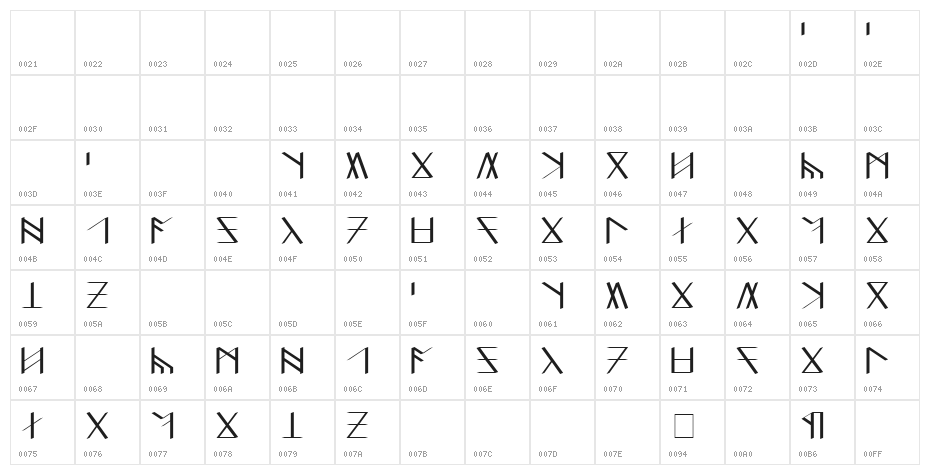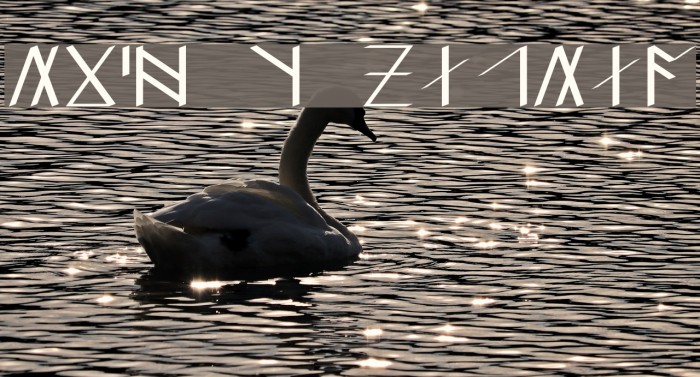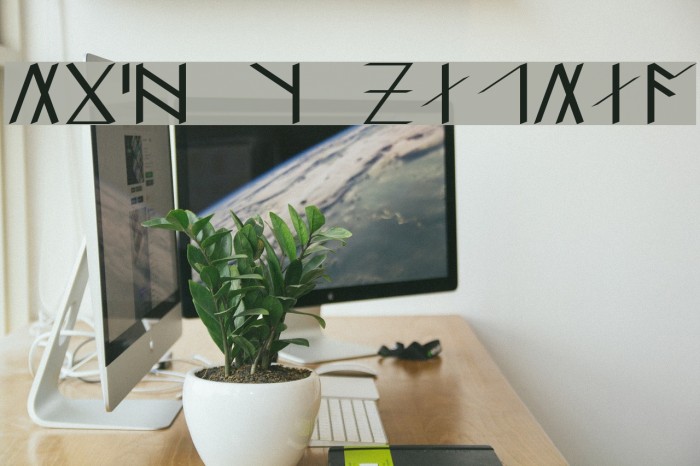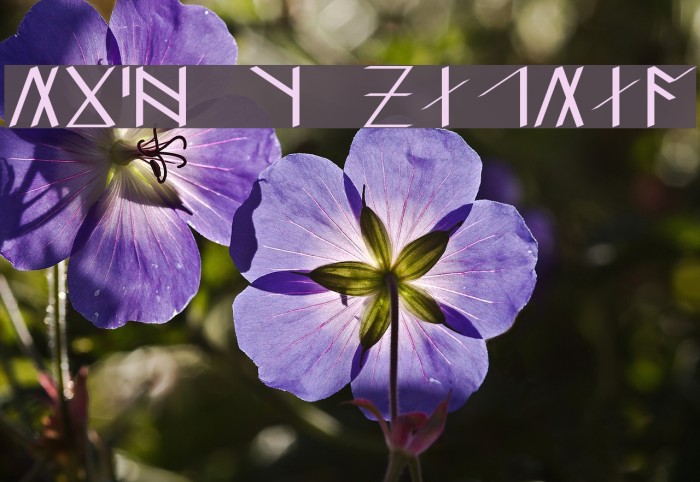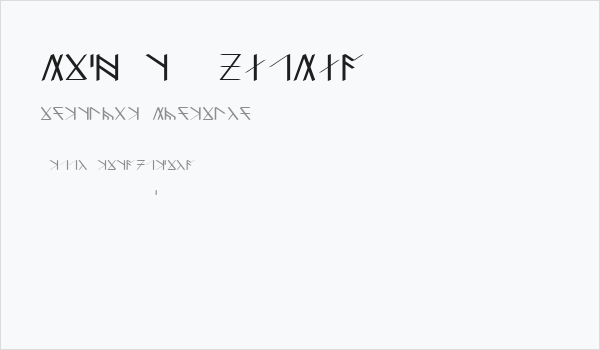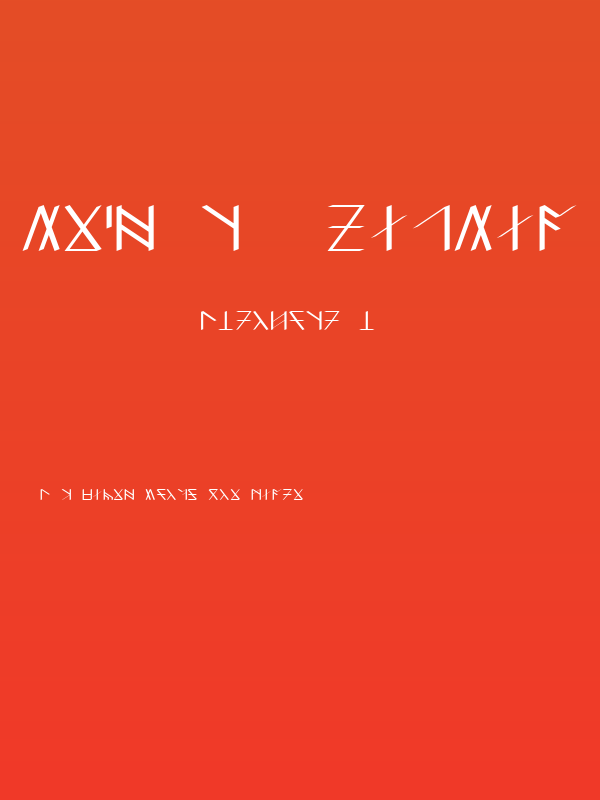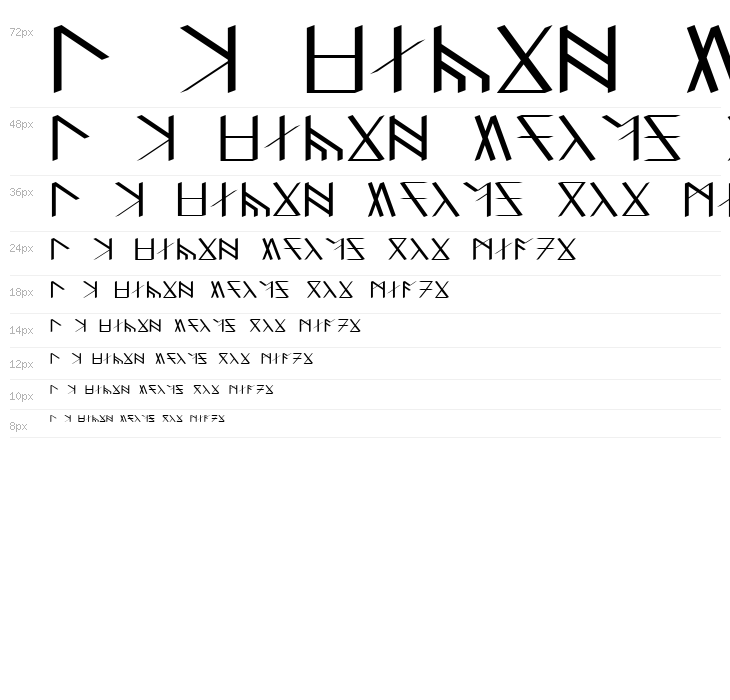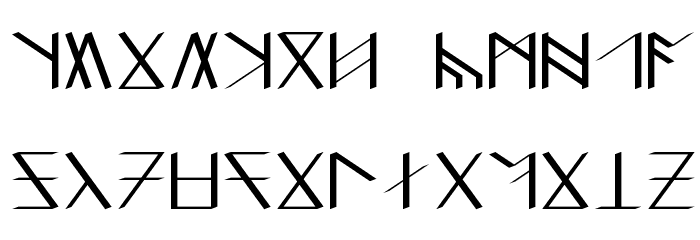
DS_Kha'zuldum Font
DS_Kha'zuldum Description
This font is a decorative typeface inspired by ancient runic alphabets, featuring angular and geometric shapes that evoke a sense of mystery and antiquity. The characters are constructed with sharp lines and edges, giving them a bold and striking appearance. The font's unique style makes it ideal for projects that require a touch of fantasy or historical ambiance. Its distinctiveness lies in the intricate design of each letter, which resembles ancient symbols or glyphs. The overall aesthetic is both captivating and enigmatic, making it suitable for creative and thematic applications.
| Use Case | Logos, Headlines, Thematic designs |
| Proposed Projects | Ideal for fantasy-themed designs, game titles, book covers, and historical or mythological projects. |